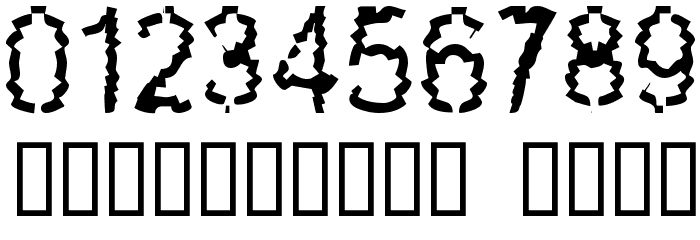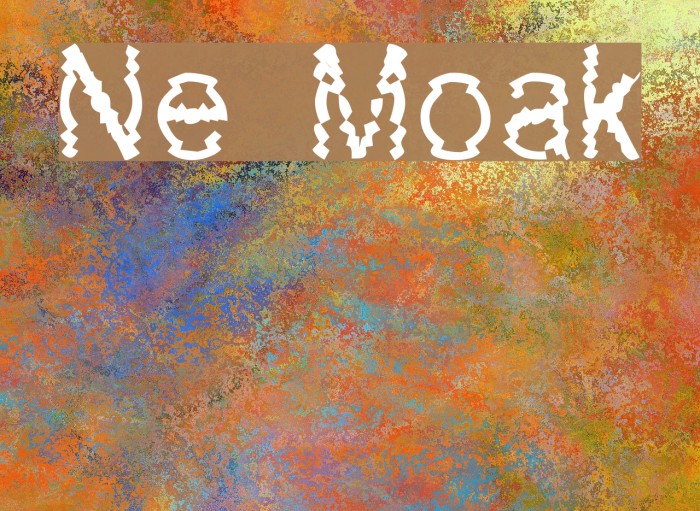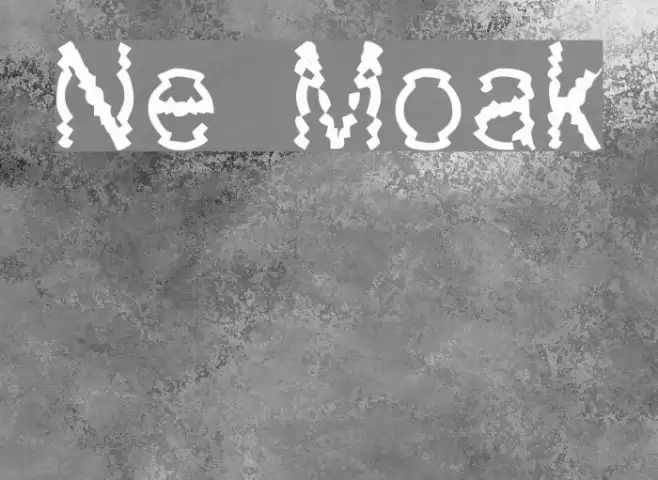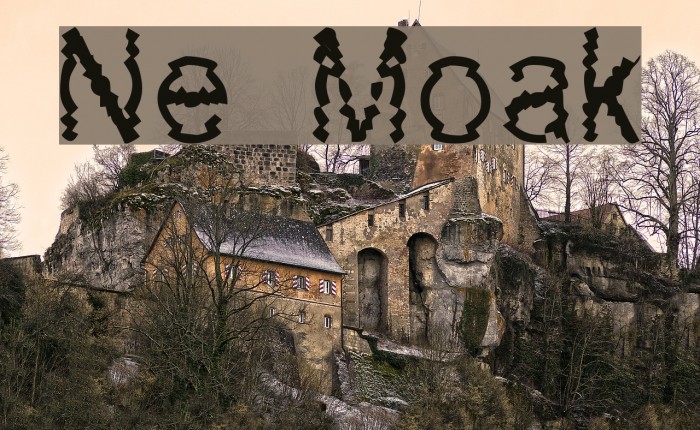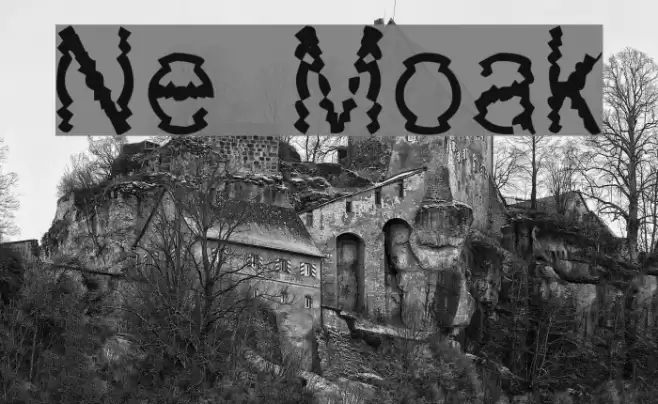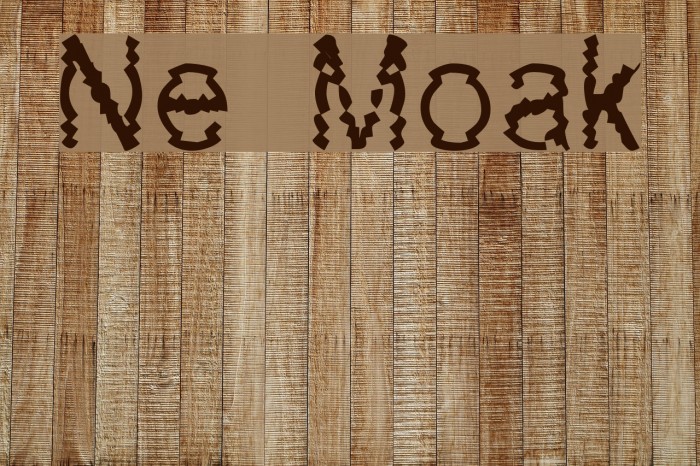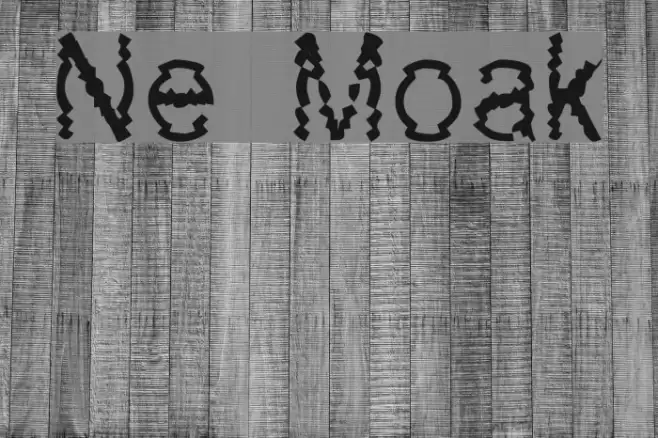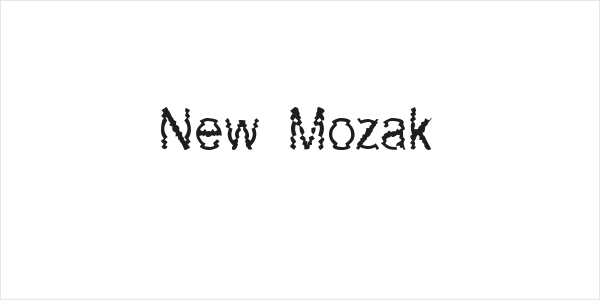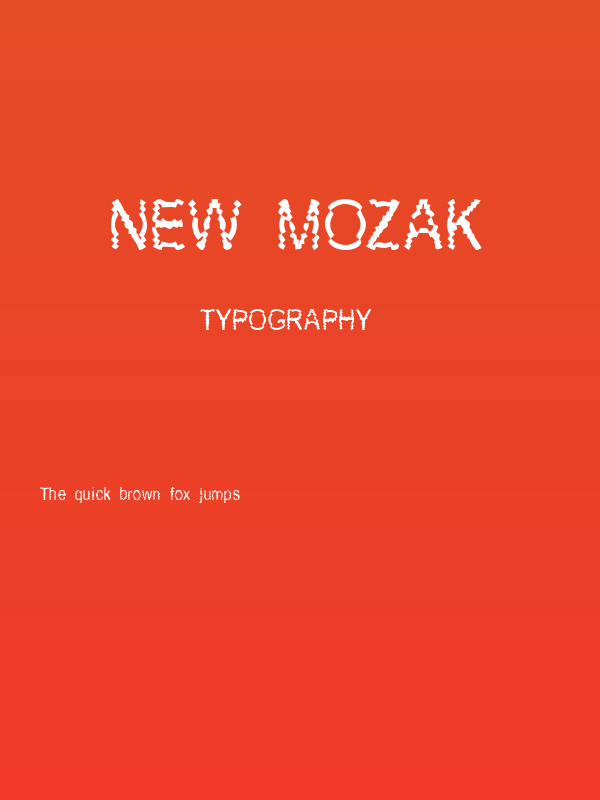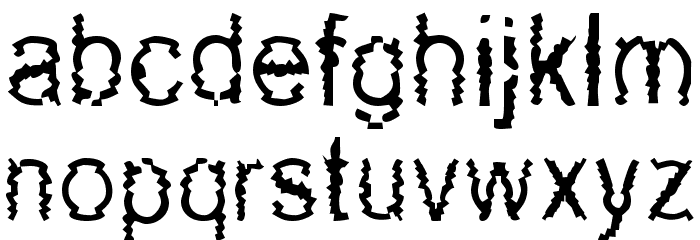
New Mozak Font
New Mozak Description
This font features a unique and artistic design with a jagged, irregular outline that gives it a dynamic and edgy appearance. The characters are bold and display a high level of creativity, making them stand out with their unconventional shapes. The uppercase and lowercase letters maintain a consistent style, with numbers and special characters following the same design principles. The font's distinct look is ideal for projects that require a strong visual impact and a modern, artistic flair.
| Proposed Projects | Ideal for album covers, posters, branding for creative industries, and any project needing a bold, artistic statement. |